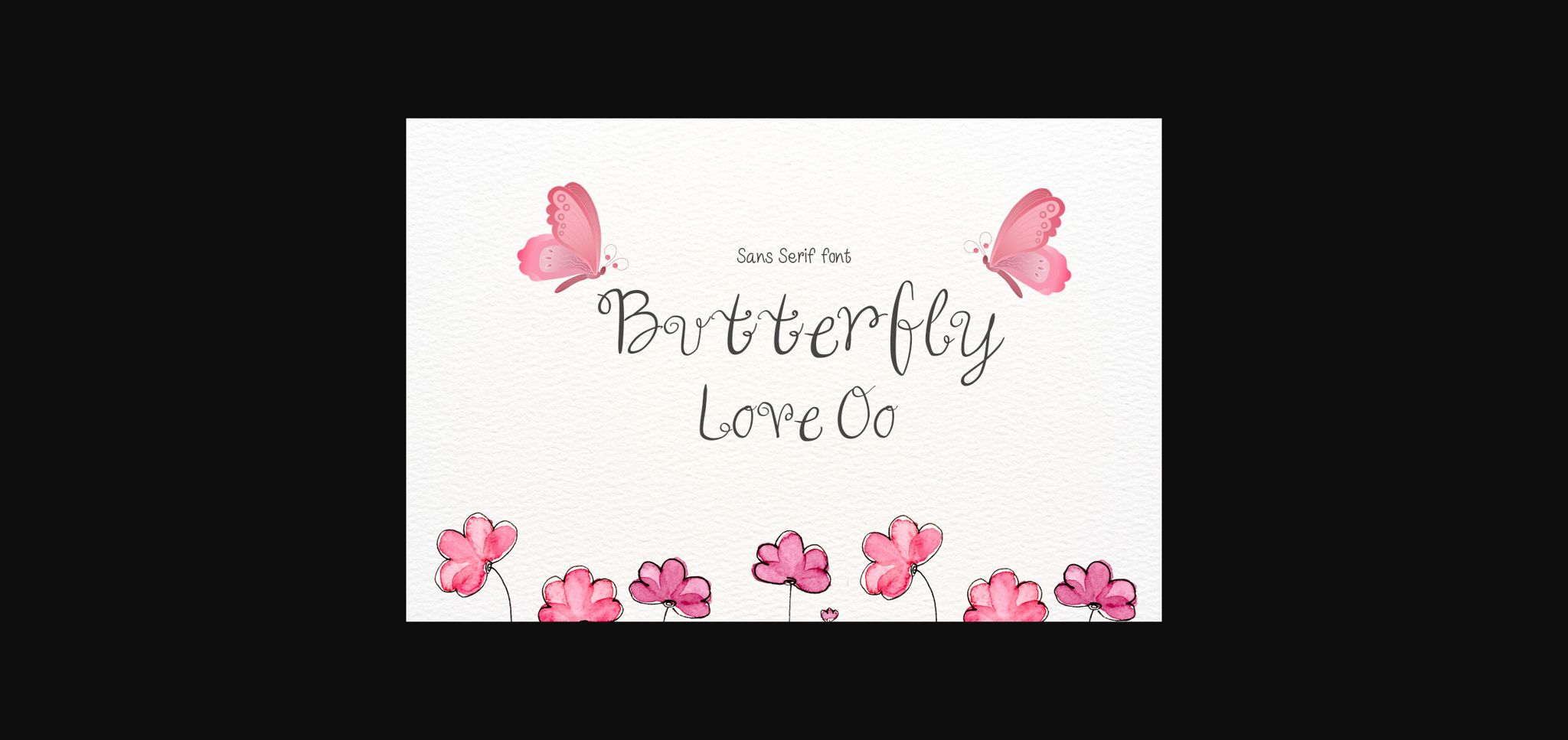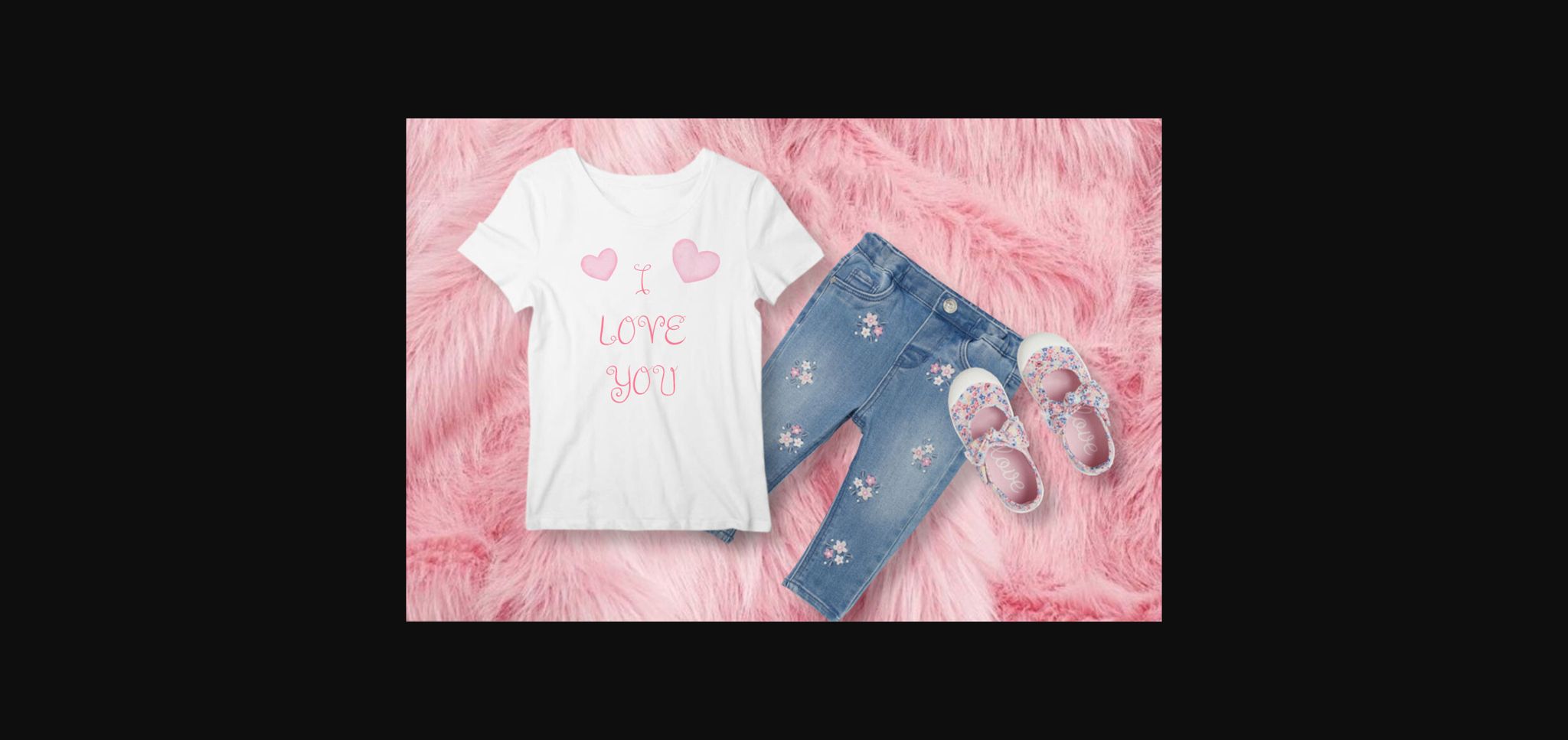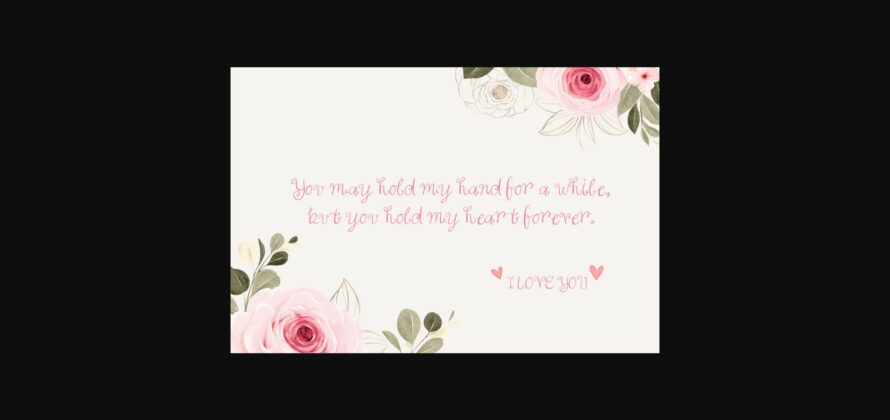
About Butterfly Love Oo Font
Butterfly Love Oo designed in a cute, beautiful and playful sans serif font style. It’s charming, whimsical, and a bit quirky. It would be awesome to your fun projects or headlines, party invitations, Fall, Halloween, Christmas, posters, blogs, clothing, social media posts or anything that needs a friendly touch. Add it to any of your creative projects!